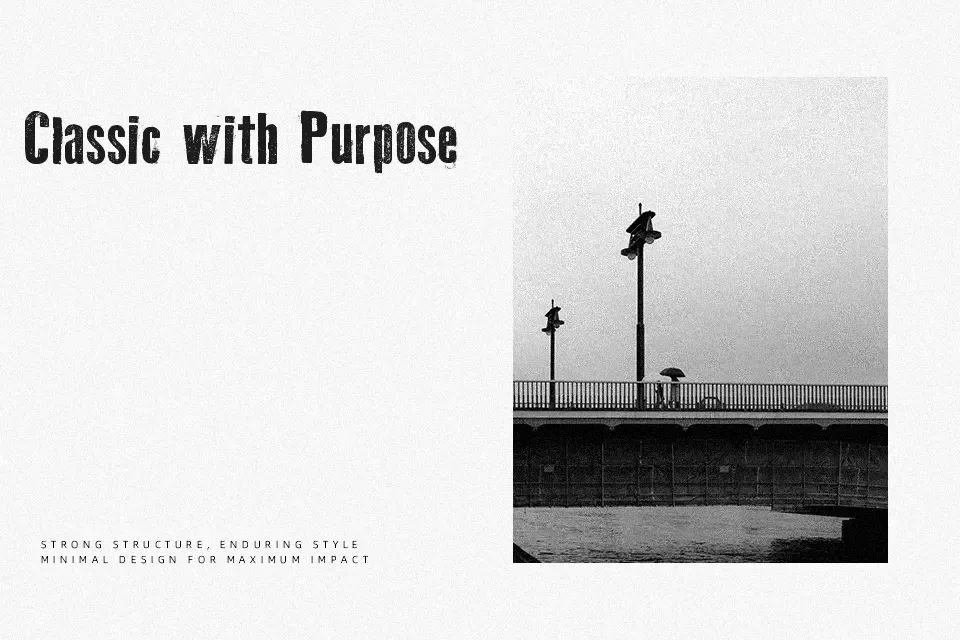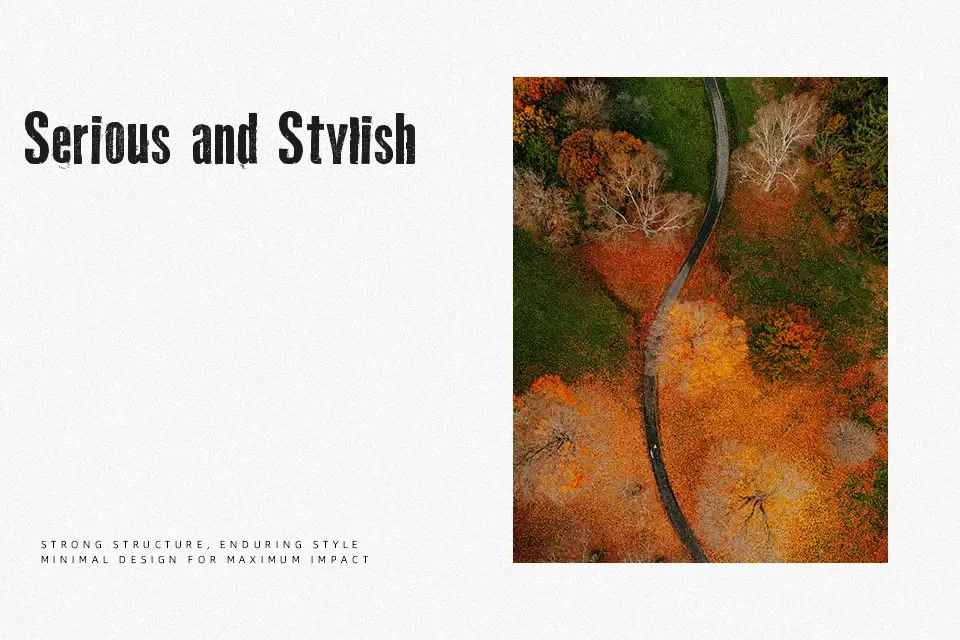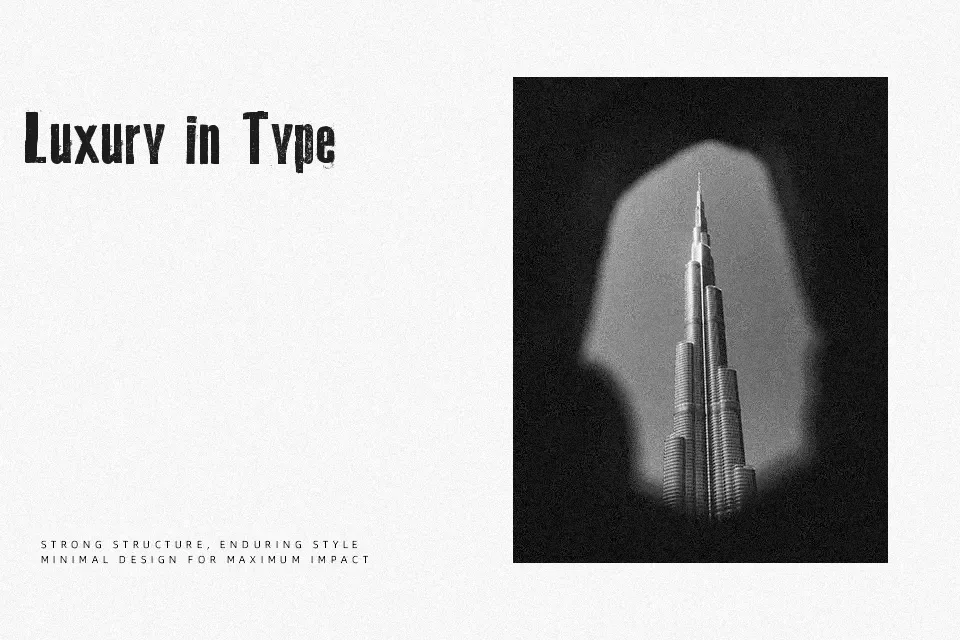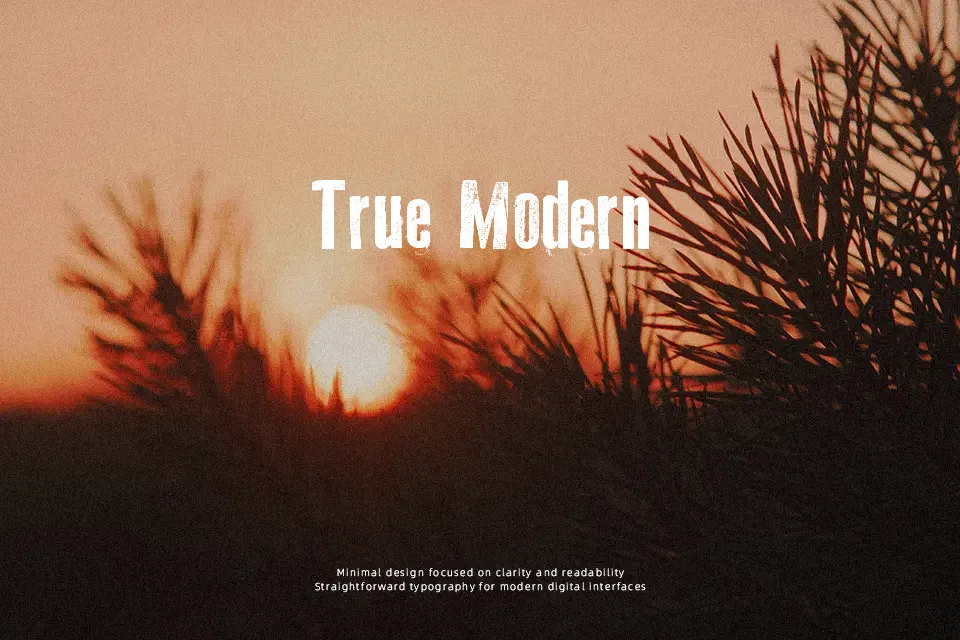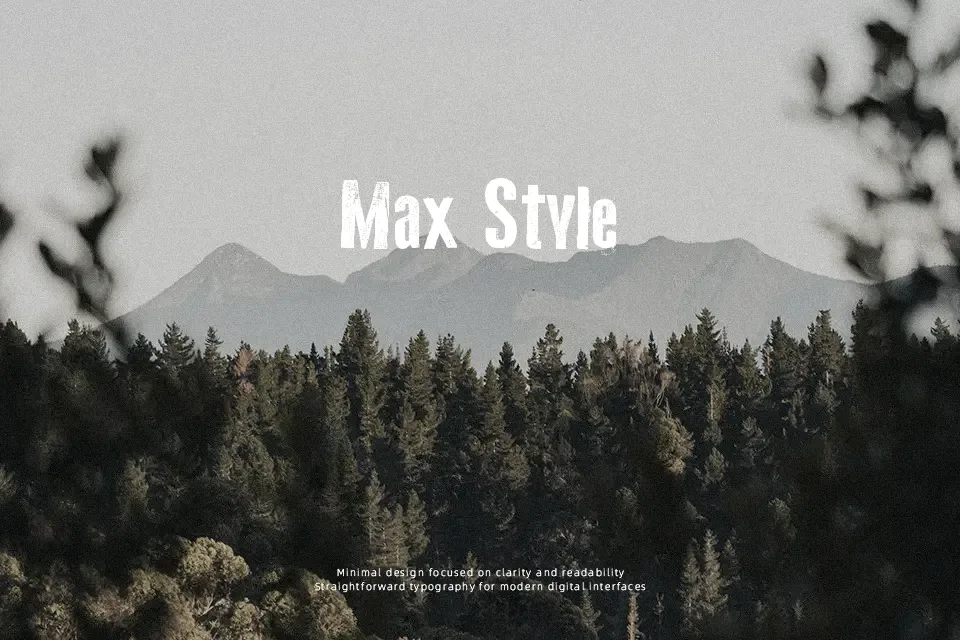
Old Typography Font
Old Typography Font works best as a large-scale display face, using eroded serif letterforms and irregular surface details to create a visibly aged appearance. The strokes appear substantial, while the distressed edges interrupt the otherwise traditional proportions. Spacing remains most effective when the design has room to breathe, particularly in short headlines and label-style text. Uppercase characters carry the strongest visual presence, and the texture gives titles a rough, printed character. It is a practical option for vintage-themed graphics, but the damaged contours become harder to read in small text, dense layouts, or extended passages.
Best For: vintage poster headlines,worn product labels,film title graphics,apparel graphics
Perfect for fashion, film, and headline, with a creative and decorative style.